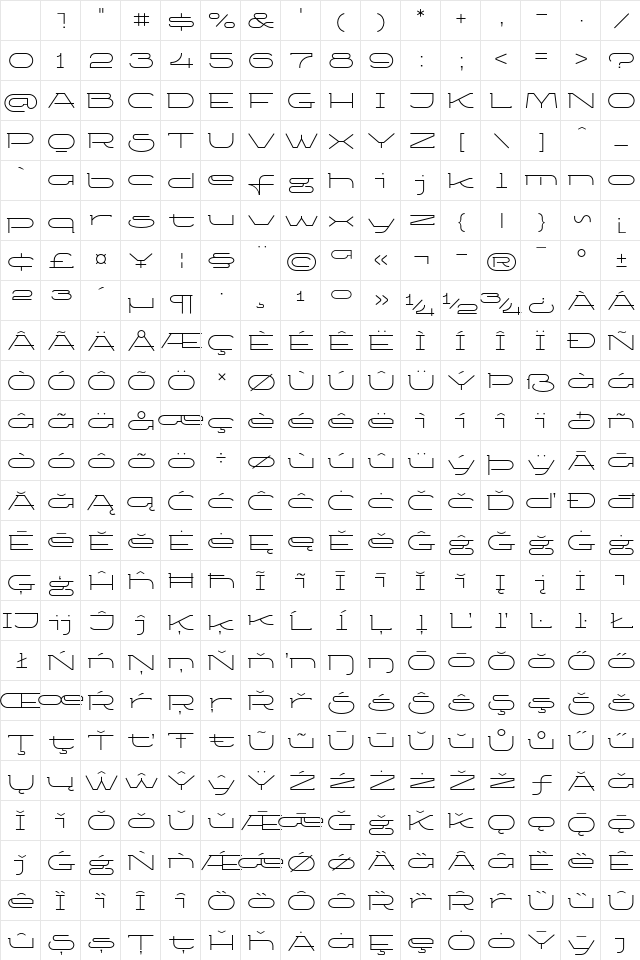
Complete KetosagLt Regular glyph index. Displaying only characters natively supported by KetosagLt Regular font.
KetosagLt is a composed and adaptable typeface that performs quietly and consistently across a wide range of design contexts.